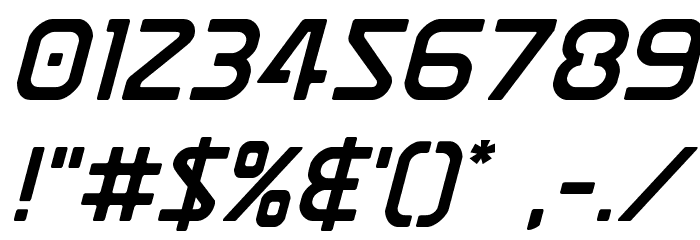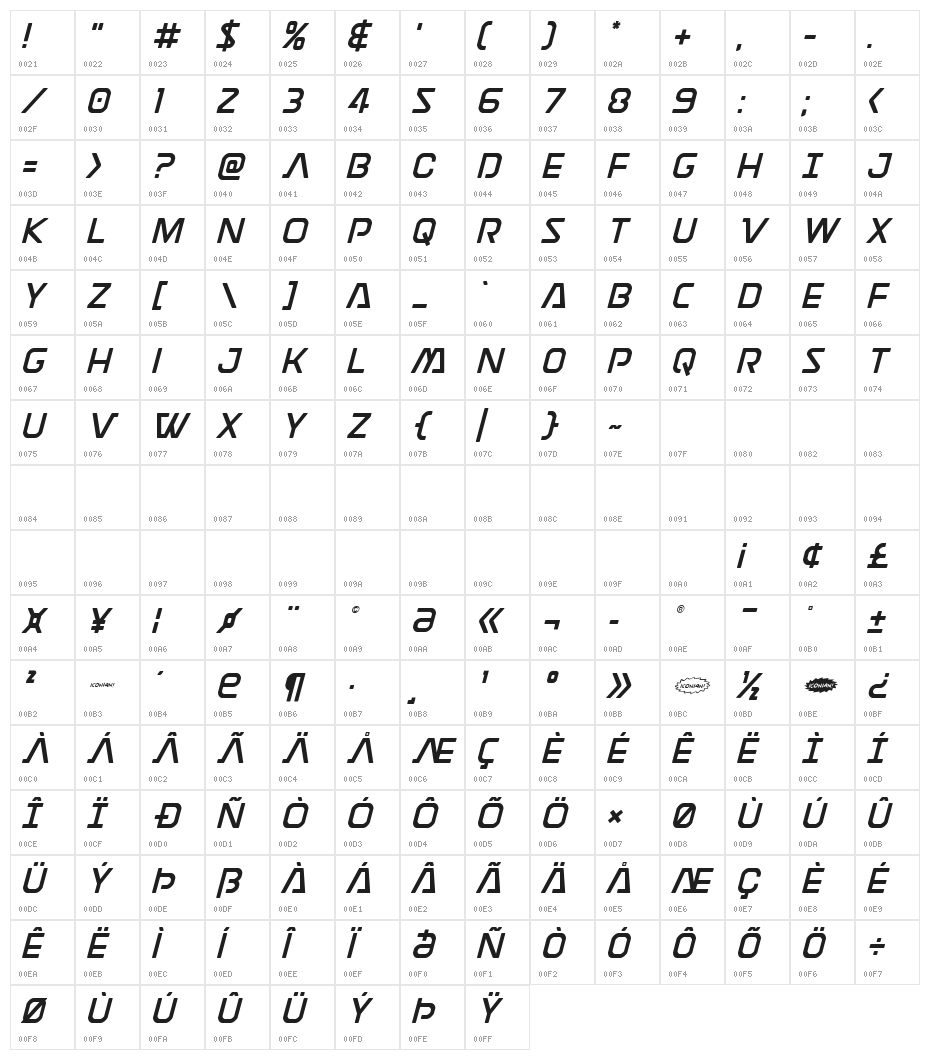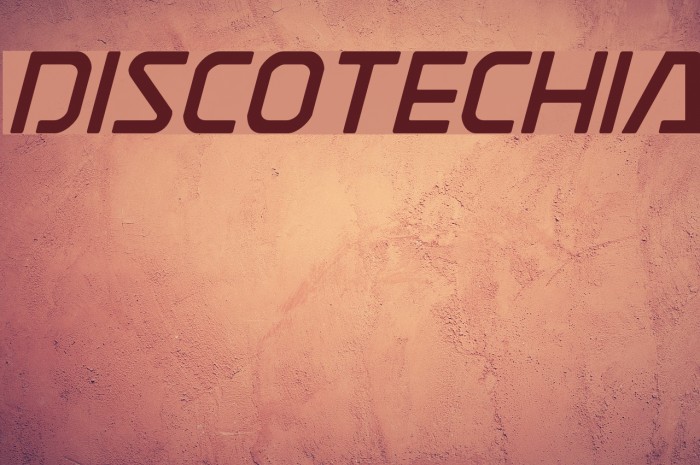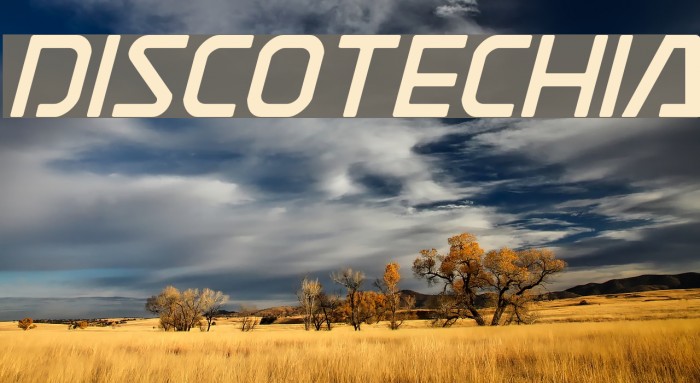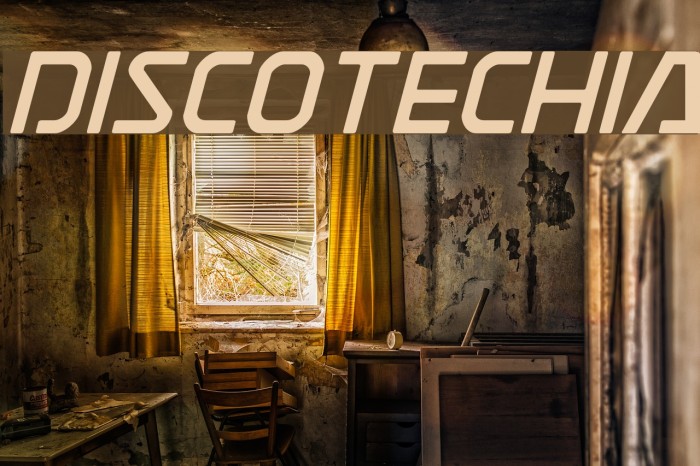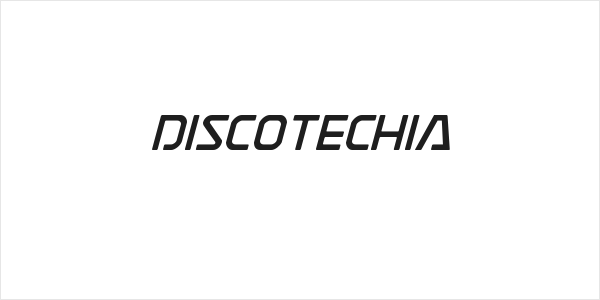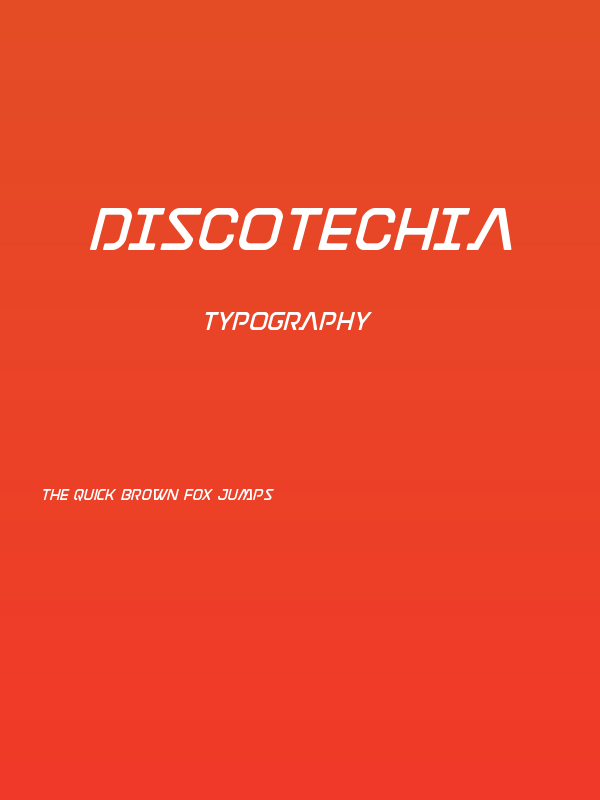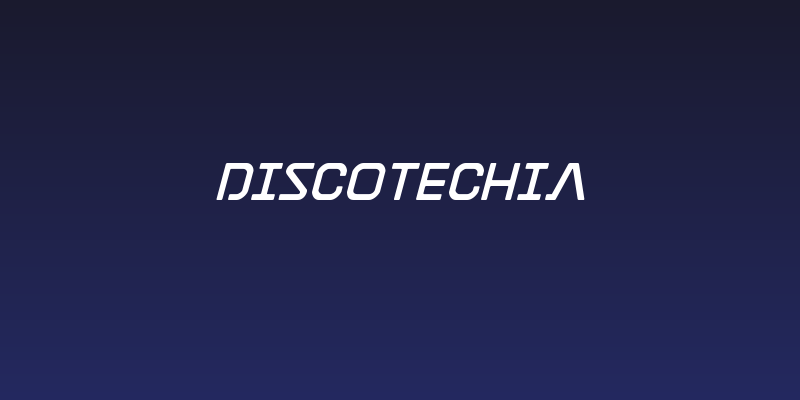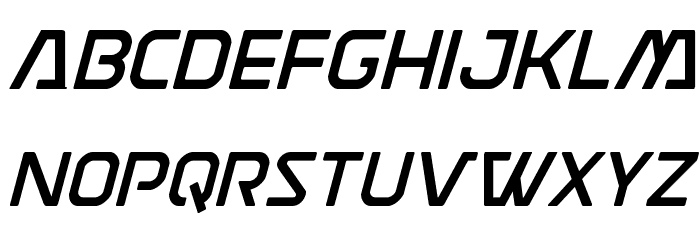
Discotechia Font
Discotechia Description
This font features a sleek, futuristic design with a distinct slant, giving it a dynamic and energetic appearance. The characters are bold and slightly condensed, with a consistent stroke width that maintains a uniform look across all letters and numbers. The angular cuts and sharp edges contribute to its modern aesthetic, making it suitable for projects that require a contemporary and tech-savvy feel. The font's clean lines and geometric shapes enhance readability while adding a touch of sophistication. Special characters are well-integrated, maintaining the overall style and ensuring versatility in various design contexts.
| Proposed Projects | Ideal for technology branding, sci-fi posters, video game titles, and modern advertising campaigns. |